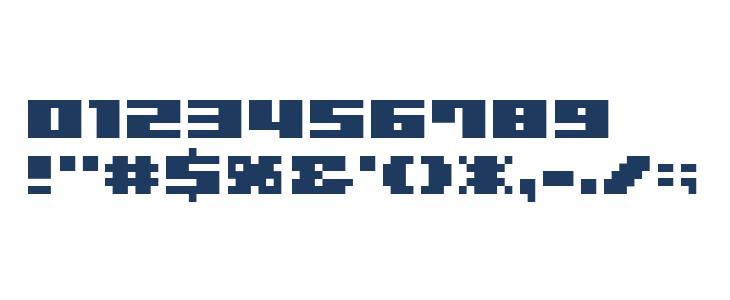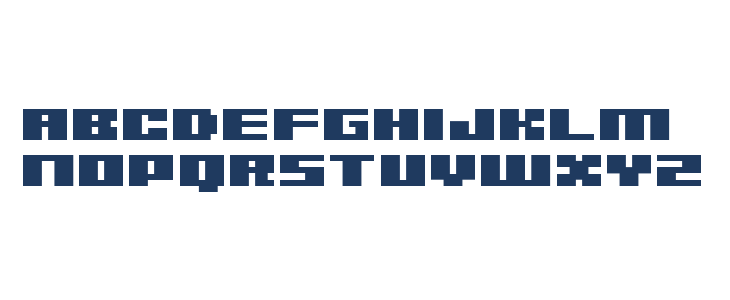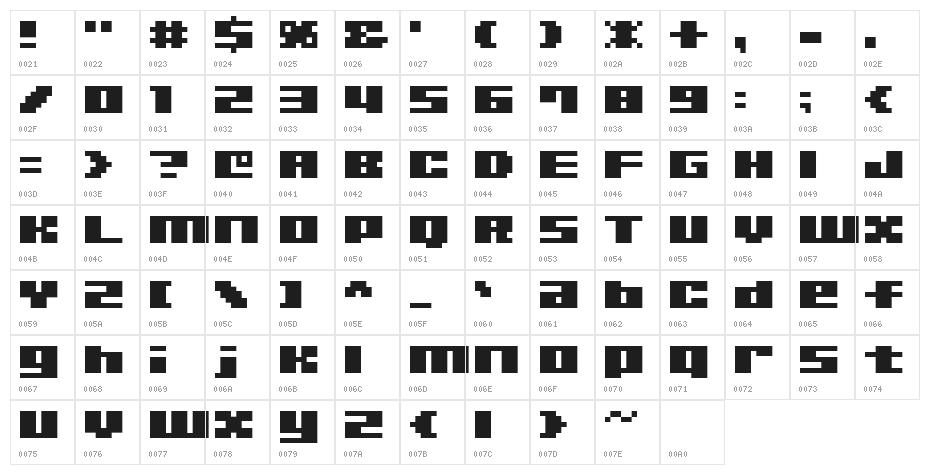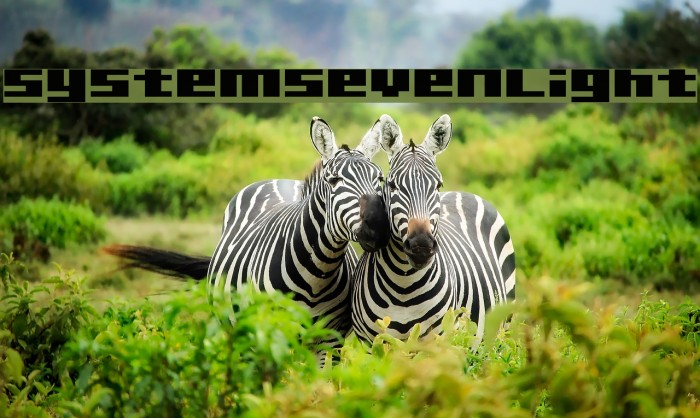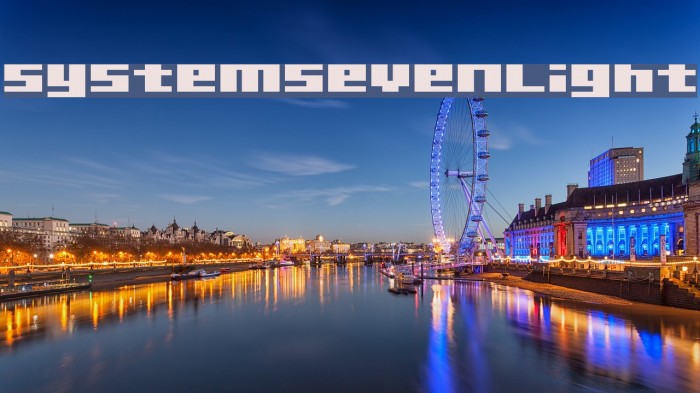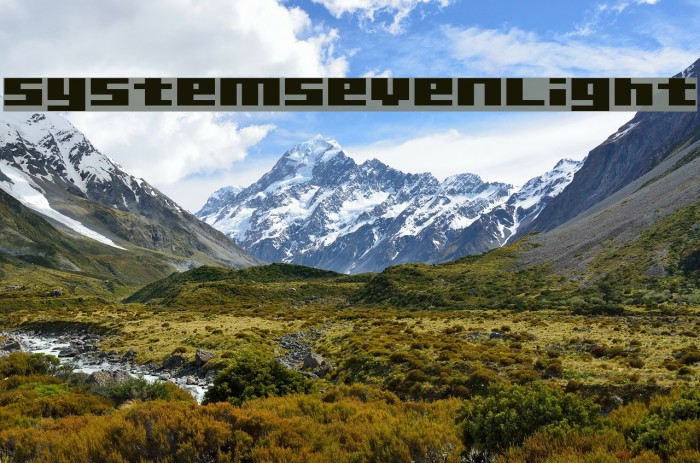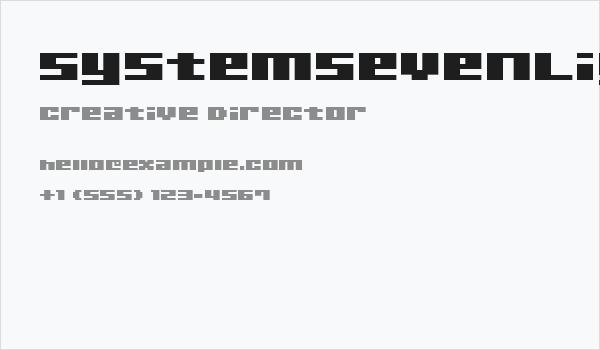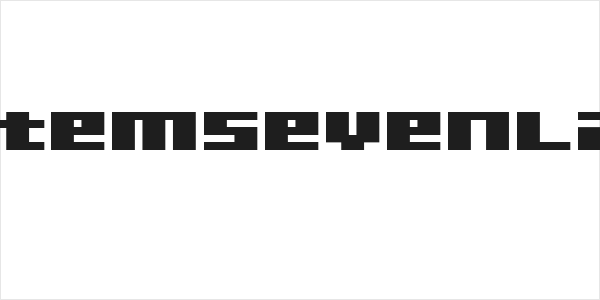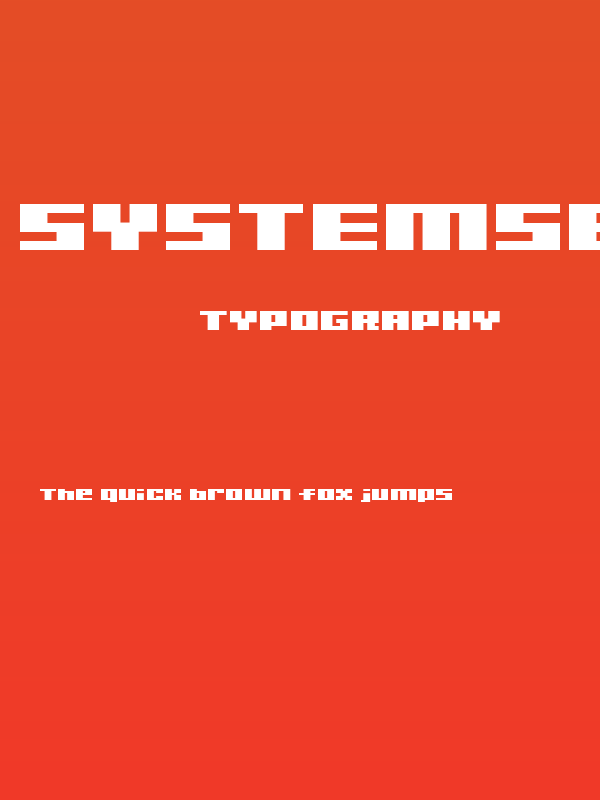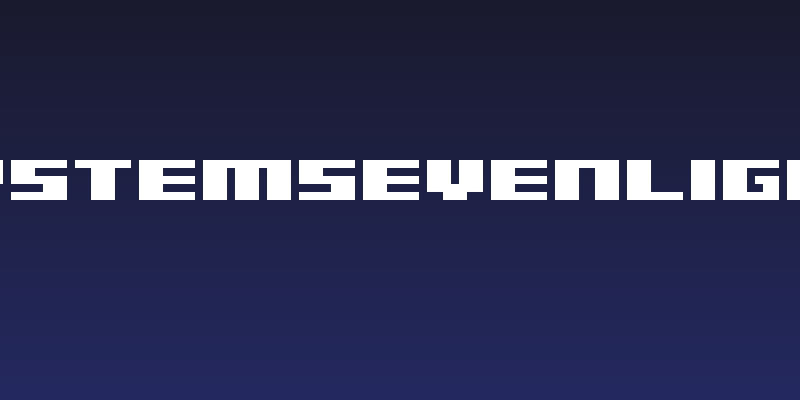
SystemSevenLight Font
SystemSevenLight Description
This font features a bold, geometric design with a distinctly digital aesthetic. The characters are constructed with sharp, angular edges and a blocky appearance, reminiscent of early computer graphics or pixel art. The uniformity in the height and width of each character gives it a monospaced feel, although it is not strictly monospaced. The uppercase and lowercase letters maintain a consistent style, with minimal variation in stroke width, contributing to a low contrast look. The numerals and special characters follow the same design principles, ensuring a cohesive visual identity across all glyphs. This font is ideal for projects that require a modern, tech-inspired look.
| Use Case | Headlines, Logos, Digital Art |
| Proposed Projects | Ideal for tech-themed designs, video game graphics, digital art projects, and modern branding. |